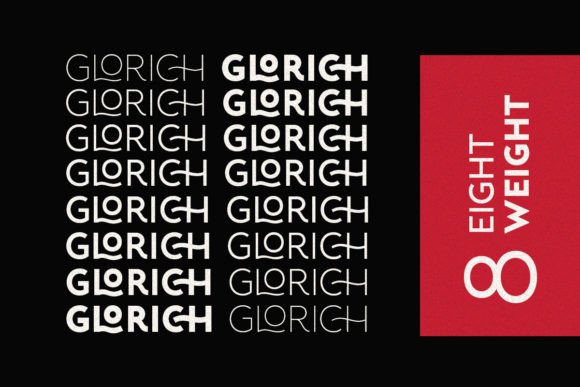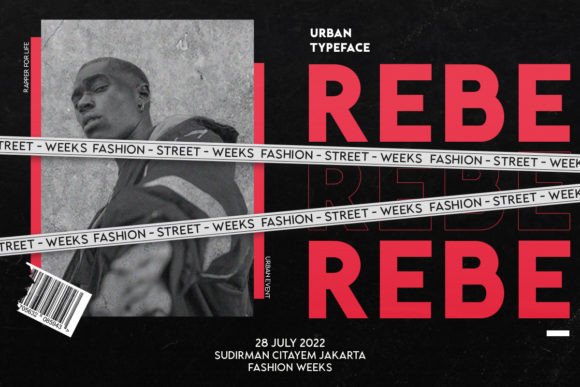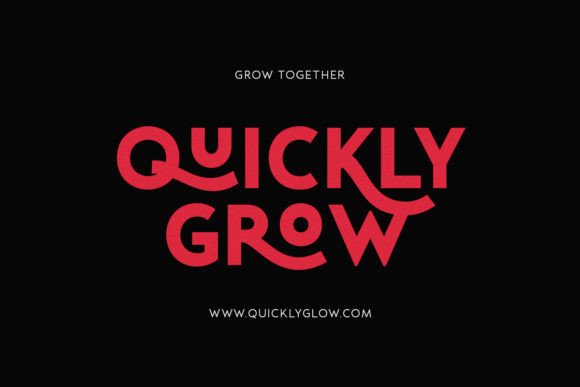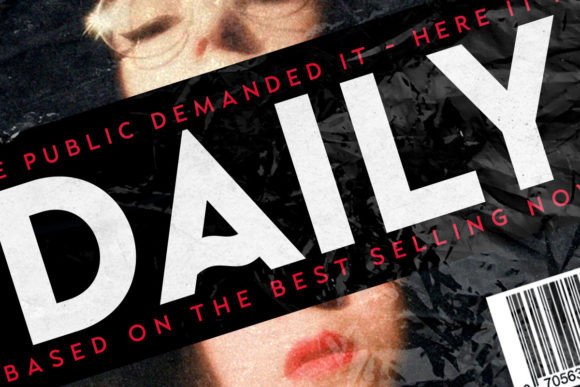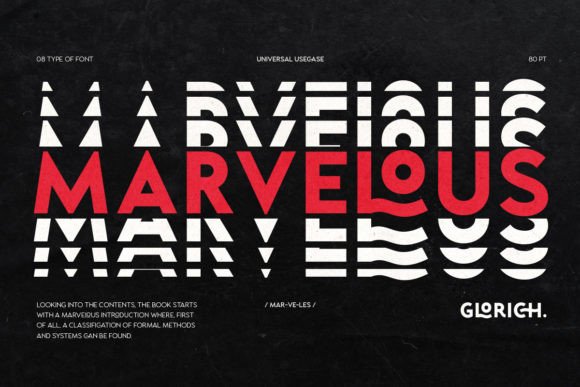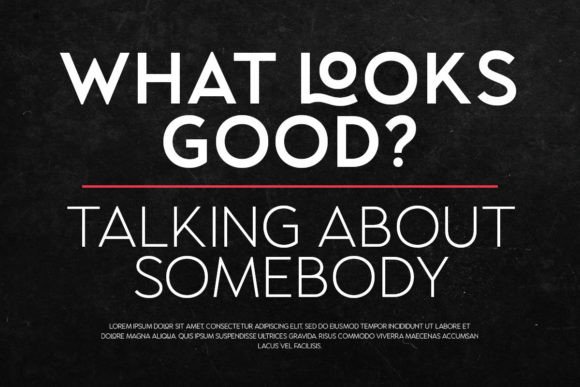
Glorich Font: A Timeless Classic for Modern Designs
In the world of typography, fonts play a crucial role in conveying messages, evoking emotions, and creating visual identities. For designers and crafters, finding the perfect font can be a daunting task. However, if you’re looking for a versatile and stylish option, look no further than the Glorich Font. This classic and modern all-caps sans font with ligatures and alternates is a game-changer for any design project.
The Unique Features of Glorich Font
So, what sets Glorich Font apart from other fonts? For starters, it’s an all-caps sans font, which gives it a clean and sleek look. But that’s not all – it also features ligatures and alternates, which add a touch of sophistication and elegance. But here’s the thing: Glorich Font has a unique twist. For specific alphabets, you can find slightly different designs between the uppercase and lowercase letters. This attention to detail makes Glorich Font truly special.
One of the best things about Glorich Font is its versatility. Whether you’re working on a title, logo, quote, or pairing it with another font, Glorich Font fits seamlessly into any design project. Its classic and modern aesthetic makes it perfect for a wide range of applications, from print materials to digital designs. You can use it to create eye-catching headlines, stylish logos, or even elegant quotes. The possibilities are endless!
Why Designers and Crafters Love Glorich Font
Designers and crafters are always on the lookout for fonts that can elevate their work and make it stand out. Glorich Font delivers. Here are just a few reasons why:
- Timeless appeal: Glorich Font has a classic look that never goes out of style. Its clean lines and elegant design make it perfect for creating timeless pieces.
- Flexibility: Whether you’re working on a digital project or a print material, Glorich Font adapts effortlessly.
- Attention to detail: The unique design elements, such as ligatures and alternates, add a level of sophistication to any design.
- Easy to pair: Glorich Font pairs well with a wide range of fonts, making it easy to create harmonious and visually appealing designs.
How to Make the Most of Glorich Font
Now that you know why Glorich Font is a great choice for your design projects, here are some tips on how to make the most of it:
- Experiment with different sizes: Glorich Font looks great in large and small sizes, so don’t be afraid to experiment.
- Play with colors: The font’s clean design makes it perfect for use with a wide range of colors and textures.
- Mix and match: Try pairing Glorich Font with other fonts to create unique and interesting combinations.
- Pay attention to spacing: Make sure to leave enough space between letters and lines to create a clean and elegant look.
In conclusion, Glorich Font is a versatile and stylish font that’s perfect for designers and crafters looking to elevate their work. Its unique features, timeless appeal, and flexibility make it a great choice for any design project. Whether you’re working on a title, logo, quote, or pairing it with another font, Glorich Font is sure to deliver. So why not give it a try and see the difference it can make in your designs?
Get Ready to Elevate Your Designs with Glorich Font